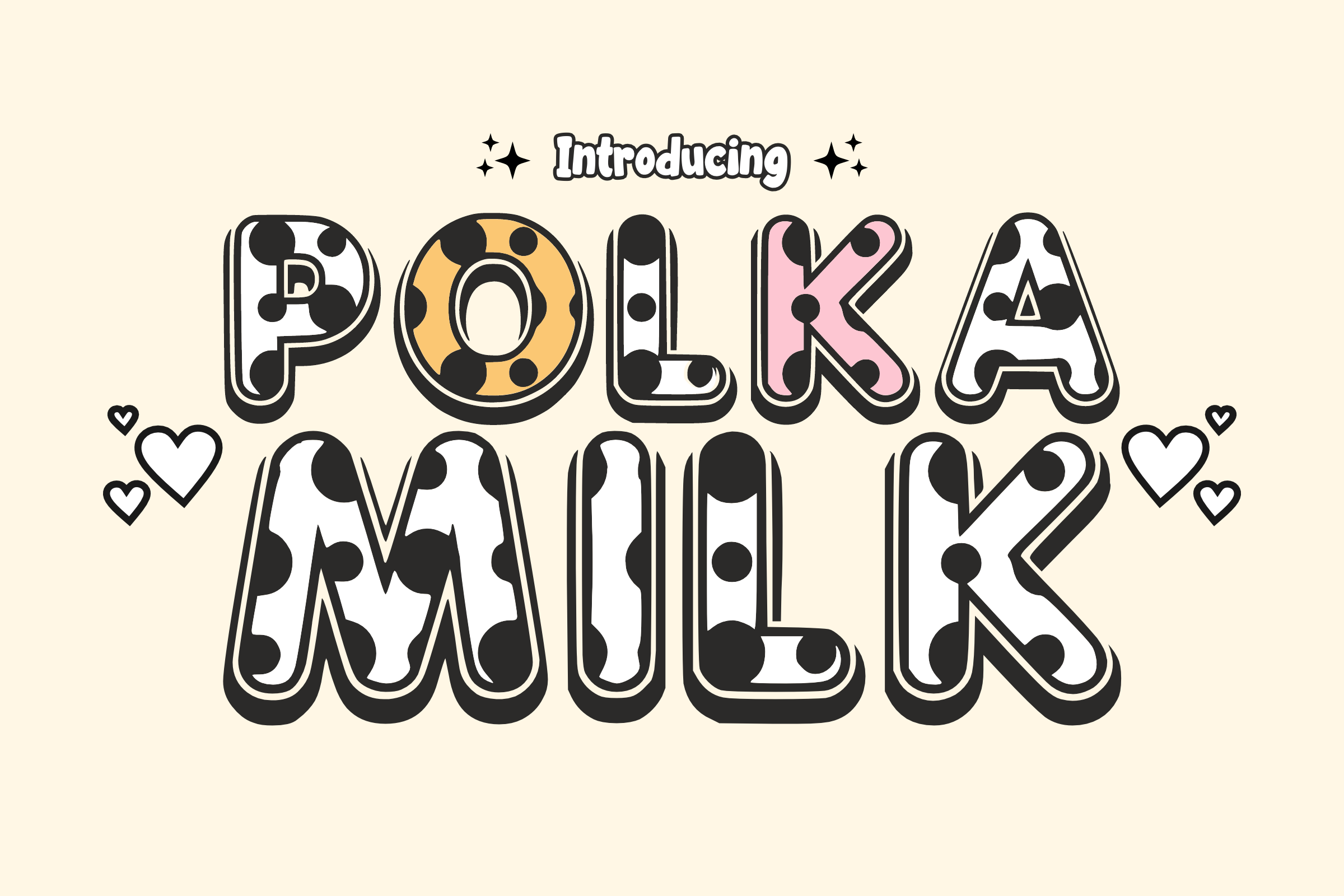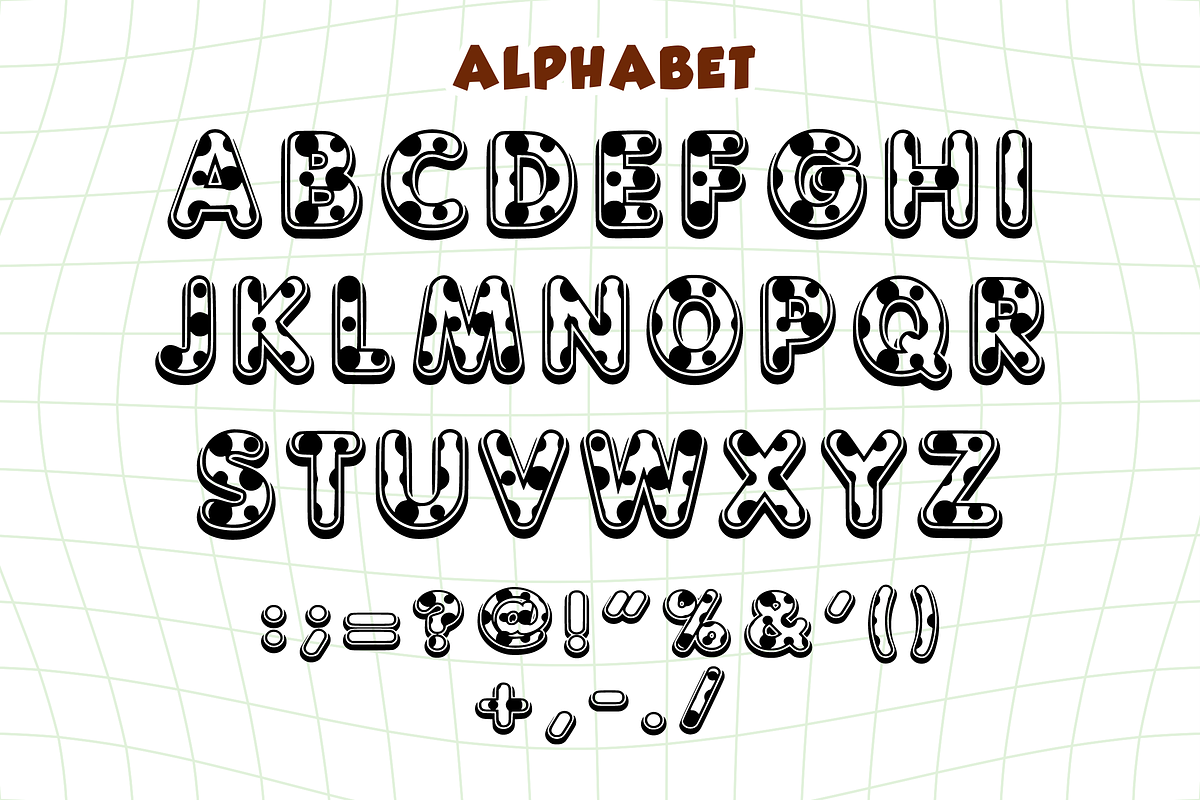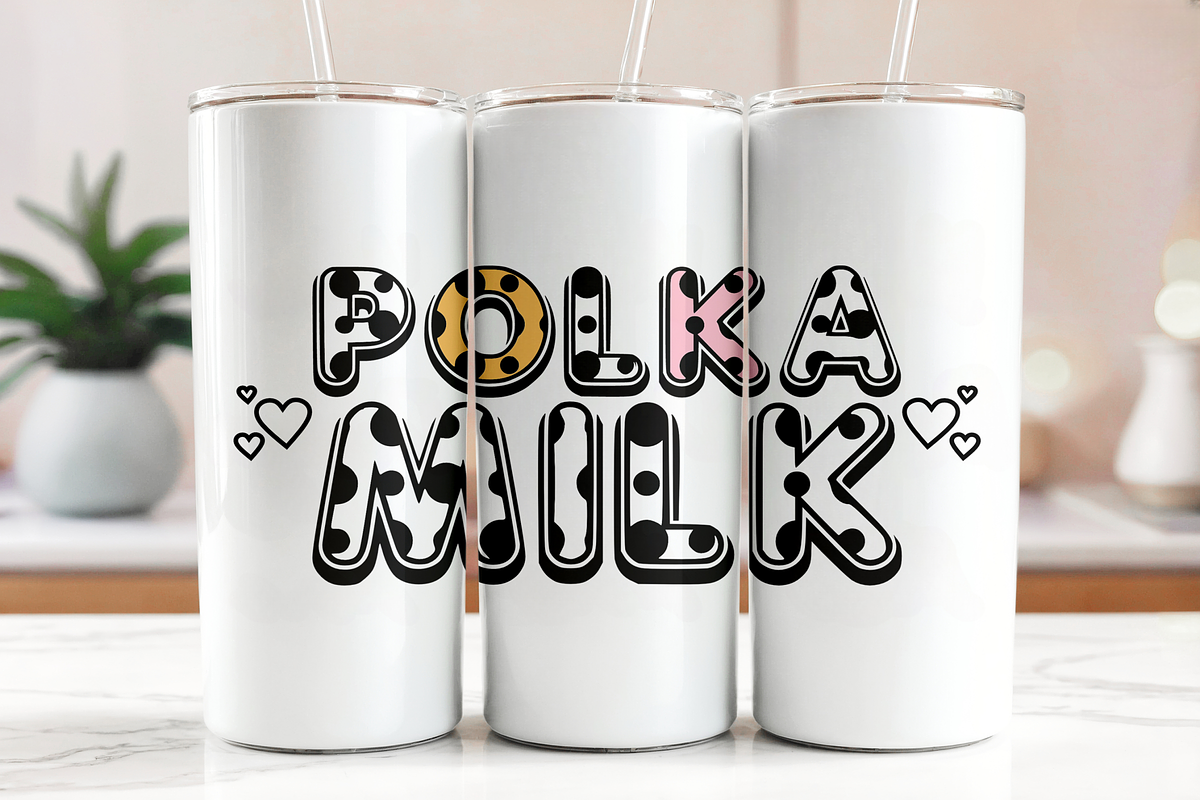
Polka Milk - Display Font
🥛 Polka Milk - Creamy & Playful Dotted Font ✨ Pour some fun into your designs with Polka Milk! This delightful display font features bold, ultra-rounded characters filled with a charming polka-dot pattern. Designed with a thick "sticker-style" outline, it creates a soft, bubbly, and energetic look that is perfect for any project needing a splash of sweetness.
Whether you're branding a dairy product, designing for kids, or creating catchy stickers, Polka Milk delivers a "creamy" and cheerful aesthetic that pops on any background!
🌟 Key Features: 🥛 Dotted Uppercase: Chunky, bouncy letters with a fun "milk-drop" pattern.
🔢 Numbers 0-9: Matching patterned numerals for prices, dates, and ages.
🎈 Simple Symbols: Essential punctuation to complete your creative vision.
🎨 Perfect For: 🥛 Food & Beverage: Milkshake menus, snack packaging, and cafe branding.
🧸 Kids & Baby: Nursery wall art, baby shower invites, and children’s apparel.
🏫 Education: Engaging school posters, teacher resources, and flashcards.
🎂 Celebrations: Birthday invitations, party banners, and personalized gift tags.
📱 Social Media: Eye-catching YouTube thumbnails and playful Instagram quotes.